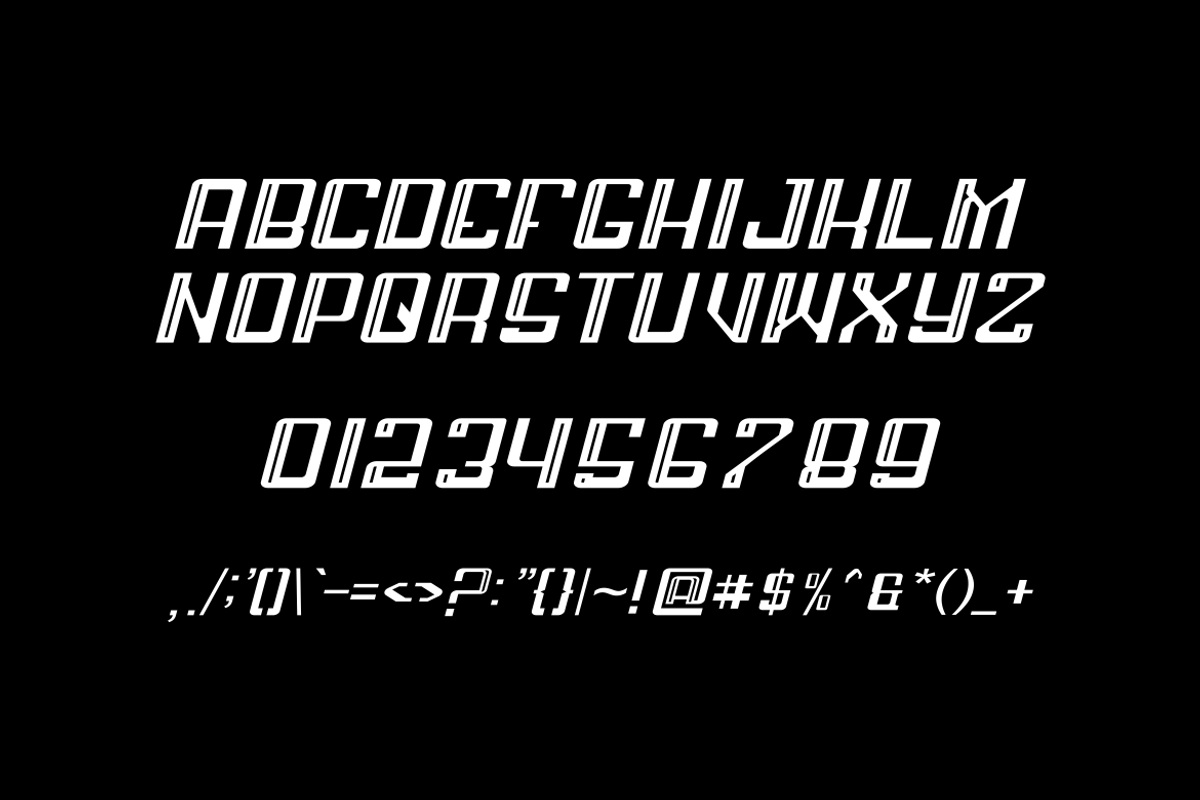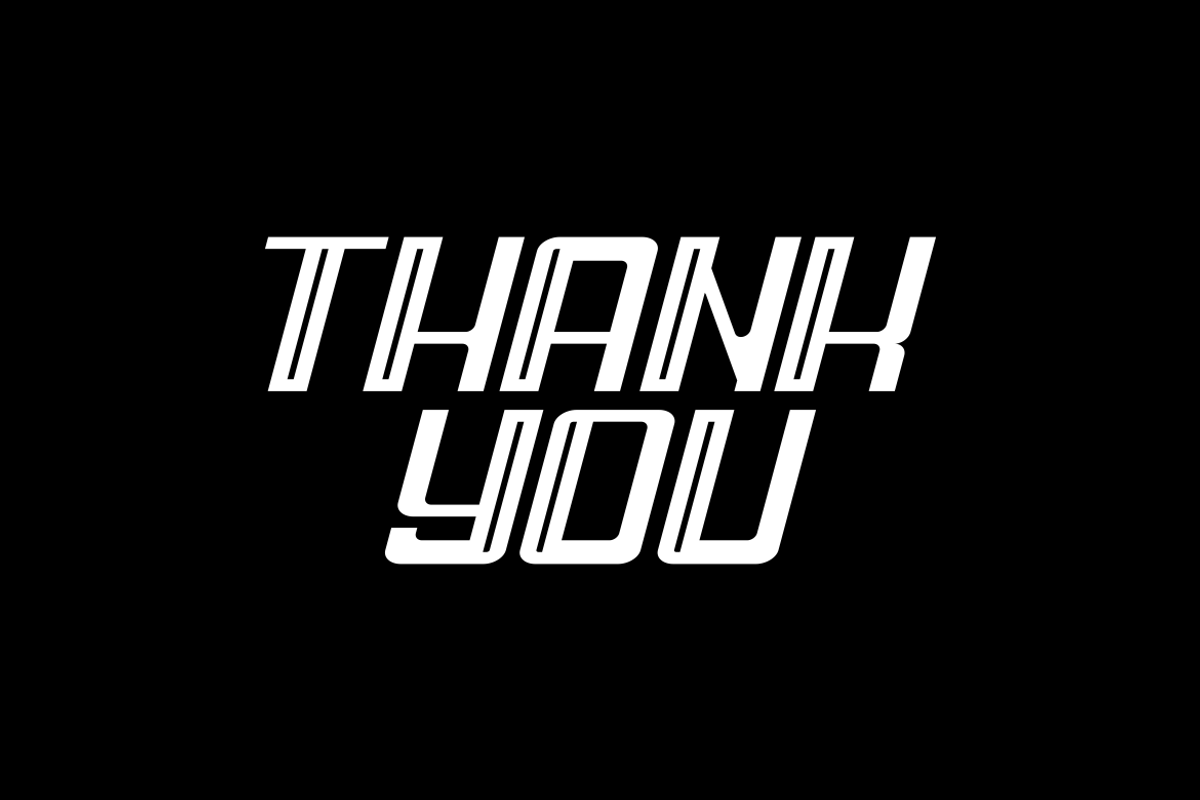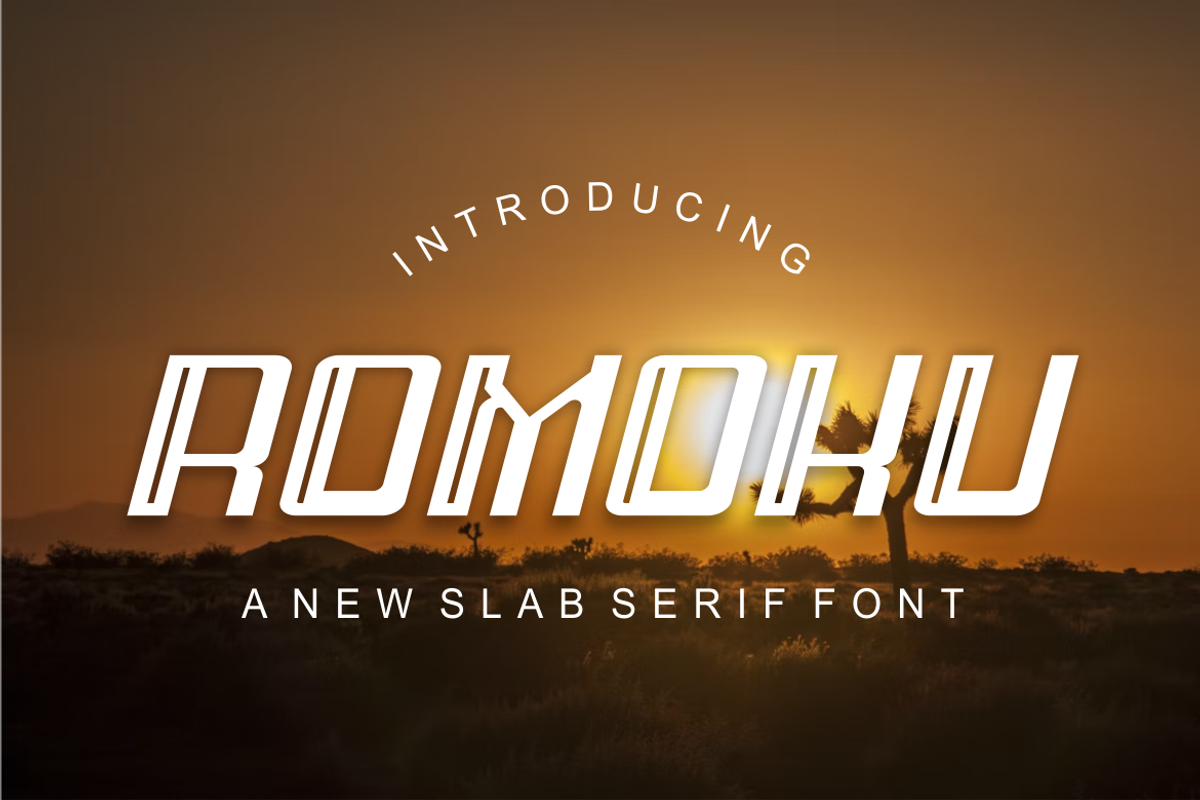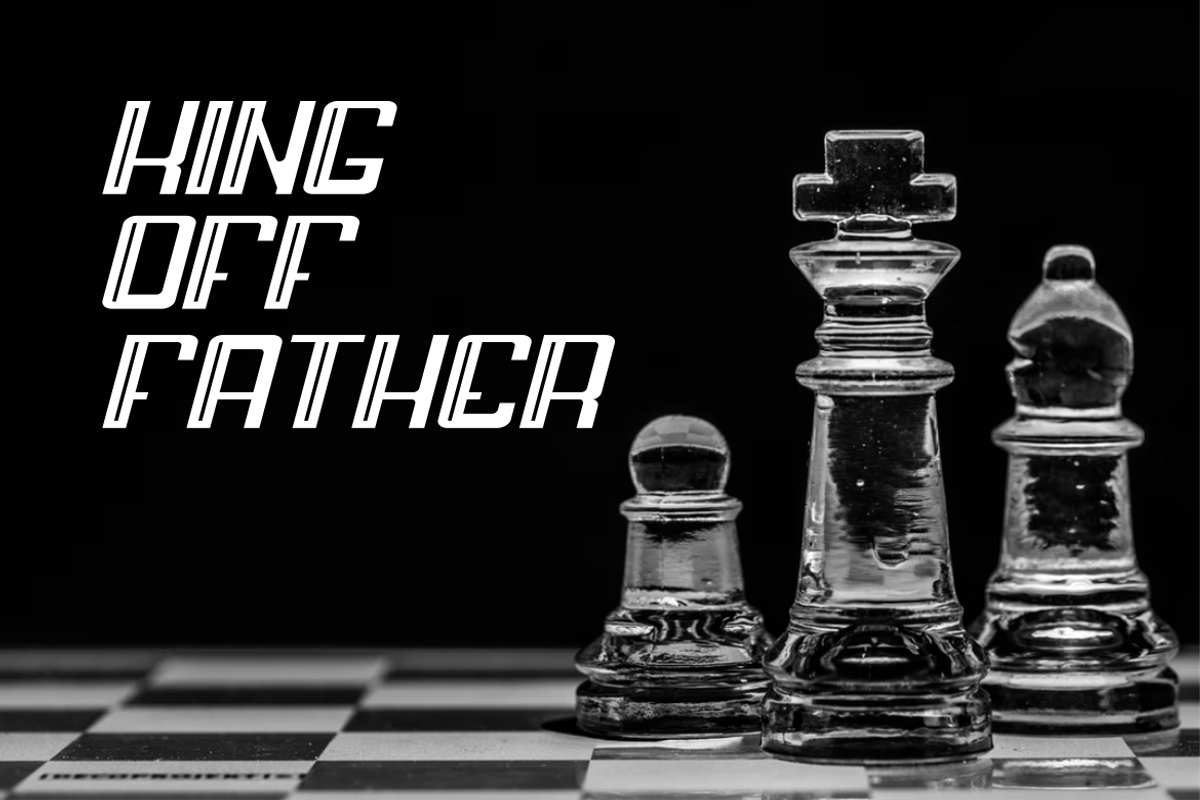
Romoku Font
Introducing our new product Romoku Font - Modern Font
Romoku Font- Modern Font is a bold and authentic display font. The font is suitable for any branding project like logo, t-shirt printing, esport, and many more. outstanding in a wide range of contexts.